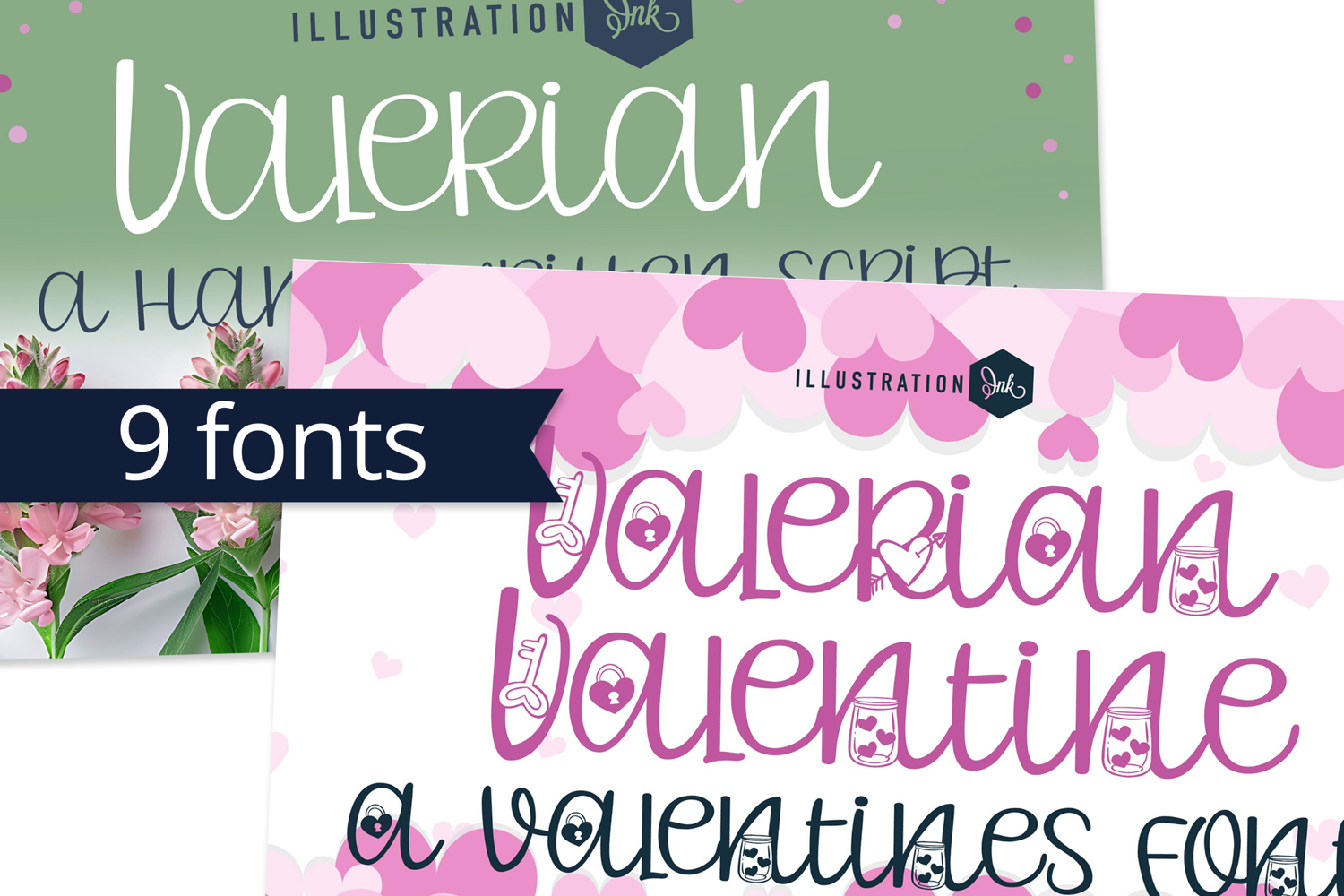
PN Valerian Valentine Font Family
This hand-crafted font is a whimsical, hand-written, print with some family members sporting Valentine imagery. There are 9 variations included.
• The letters are not perfectly uniform in size or shape.
• There may be slight variations in the spacing between letters and words.
• The font may have a "wiggly" or "squiggly" appearance.
• The font may be difficult to read at small sizes.